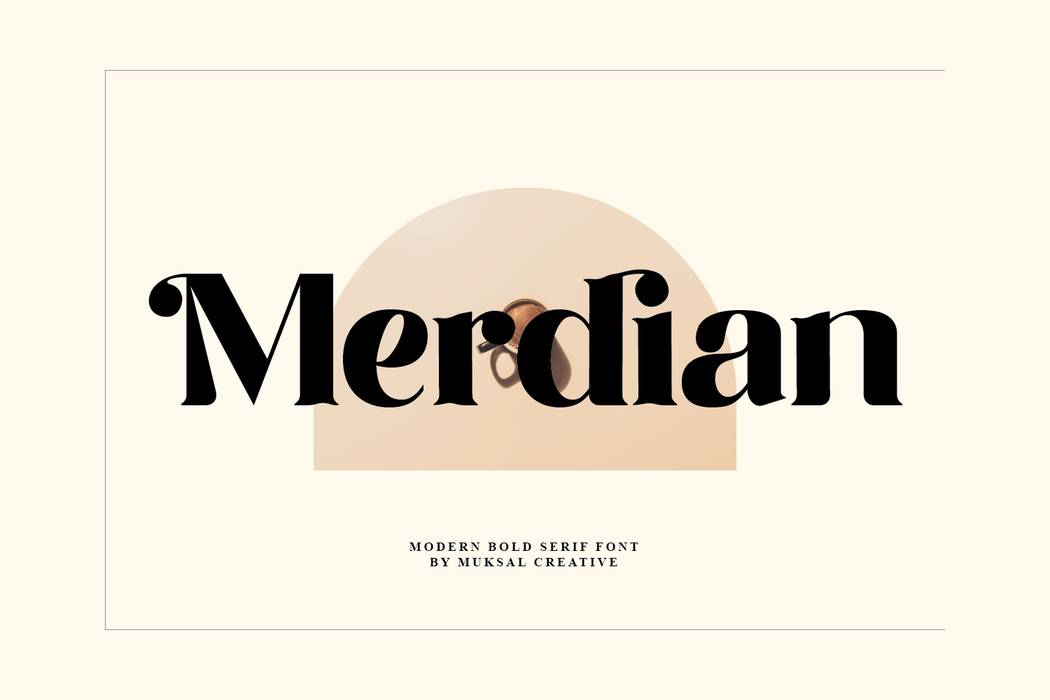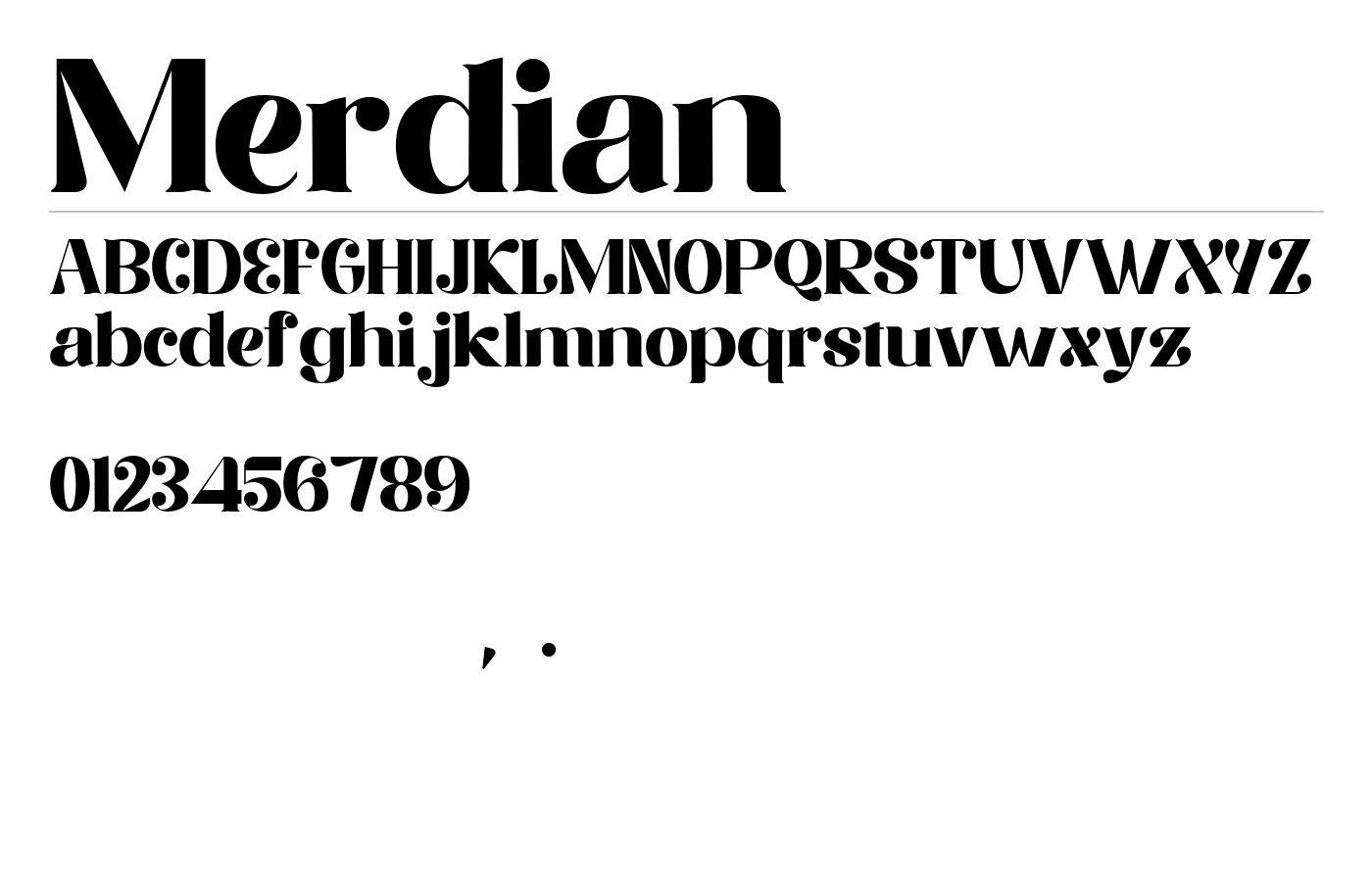
Merdian is a bold, high-contrast serif typeface with a modern Didone influence, featuring sharp, thick serifs and elegant bracketed details. Its unique letterforms and strong vertical stress give it a sophisticated, luxurious feel, making it ideal for fashion branding, editorial headlines, and upscale packaging where style and impact matter. This font delivers a striking balance of classic refinement and contemporary flair, perfect for designs that need to convey confidence and elegance.
Merdian Font
About Merdian Font
| Font family | Merdian Font |
| Designer | Muksal Creative |